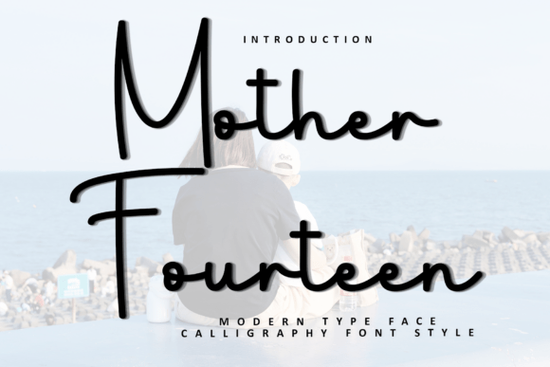
Designers, crafters, and small business owners often look for fonts that stand out while remaining easy to use. The Mother Fourteen Font is one such typeface that offers a soft, unique aesthetic without sacrificing readability. Whether you're working on a logo, a greeting card, or a print-on-demand product, this font can add a touch of personality to your work. Its distinctive strokes make it ideal for projects that need a little extra flair.
If you're looking for a font that feels personal and meaningful, the Mother Fourteen Font might be exactly what you need. Its natural style gives it a handcrafted feel, which can be especially appealing for artists who want to add a human touch to their work. This font is perfect for anyone who wants to create something that stands out but still feels approachable.
What makes the Mother Fourteen Font unique?
The Mother Fourteen Font has a distinct character that sets it apart from other typefaces. Its soft strokes and rounded edges give it a friendly, almost handwritten appearance. This makes it ideal for projects that aim to convey warmth and creativity. Unlike more rigid or modern fonts, this one feels more organic and expressive.
Another feature that makes this font stand out is its variety of characters. It includes uppercase and lowercase letters, numbers, and symbols, making it suitable for a wide range of uses. Whether you’re designing a website, creating a poster, or working on a custom t-shirt, the Mother Fourteen Font can adapt to different needs.
How to use the Mother Fourteen Font in your projects
Try using it for headings or titles to draw attention to important elements in your design. It also works well for body text if you want to maintain a consistent, elegant look. Experimenting with different sizes and colors can help you find the best way to incorporate it into your work.
Final thoughts on the Mother Fourteen Font
The Mother Fourteen Font is a great addition to any designer’s toolkit. Its soft, unique style makes it ideal for a variety of creative projects, and its compatibility with different platforms ensures it’s easy to use. Whether you're a hobbyist or a professional, this font can help you express your ideas in a more personal and artistic way.
If you’re looking for a font that feels natural and expressive, give the Mother Fourteen Font a try. It might just become one of your favorites.